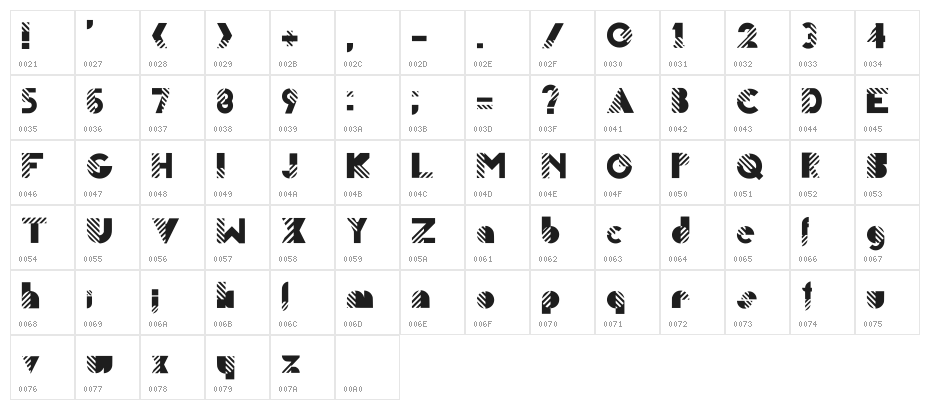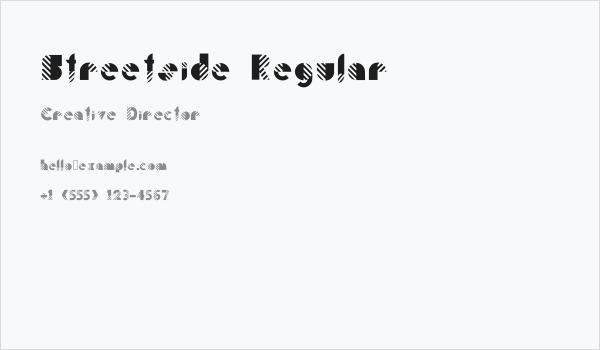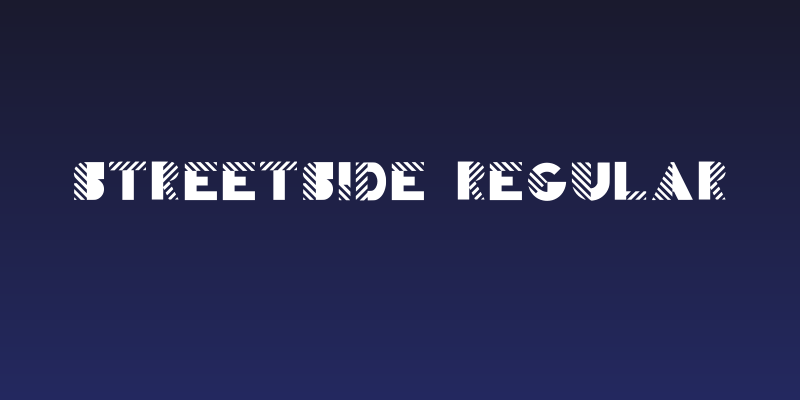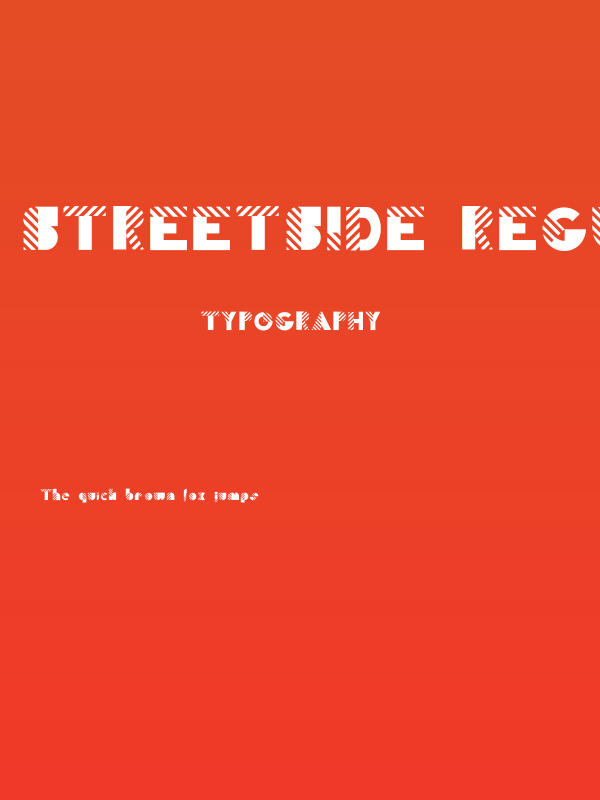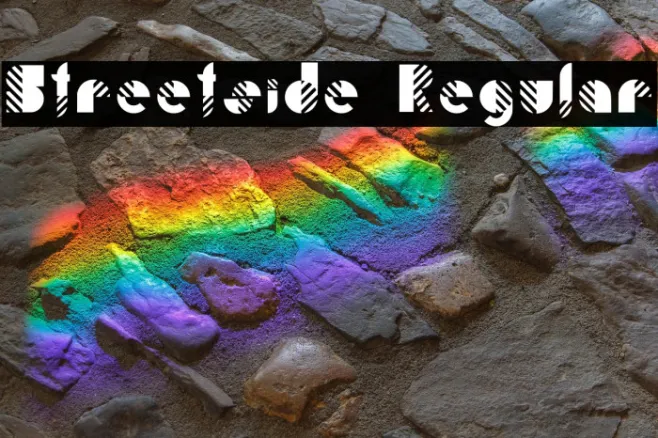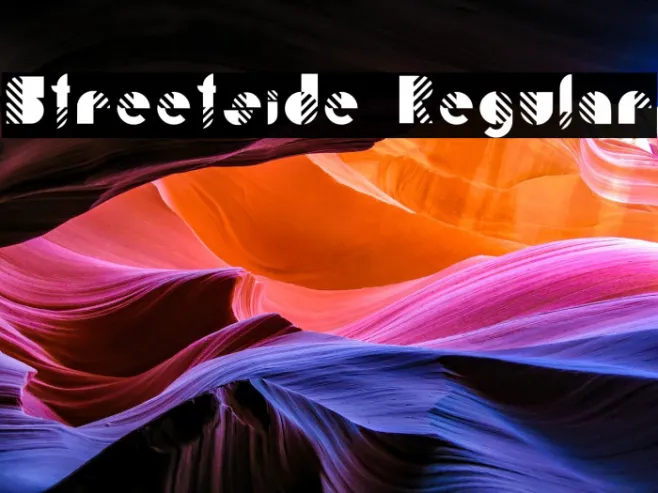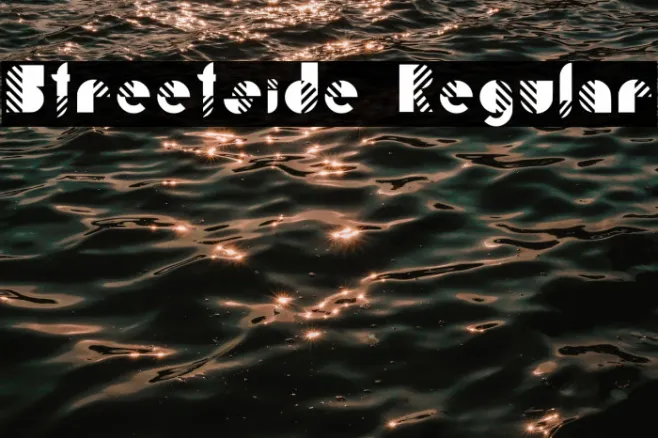
Streetside Regular Font
Streetside Regular Description
This font features a bold and striking design with a unique combination of solid and striped patterns within each character. The uppercase and lowercase letters maintain a consistent style, with the stripes adding a dynamic and modern twist. The numerals and special characters follow the same aesthetic, ensuring uniformity across all elements. The font's geometric shapes and clean lines make it highly legible while still offering a decorative flair. Its distinct appearance is ideal for projects that require a bold statement or a contemporary edge.
| Proposed Projects | Ideal for branding, poster design, headlines, and any project needing a modern, eye-catching typeface. |